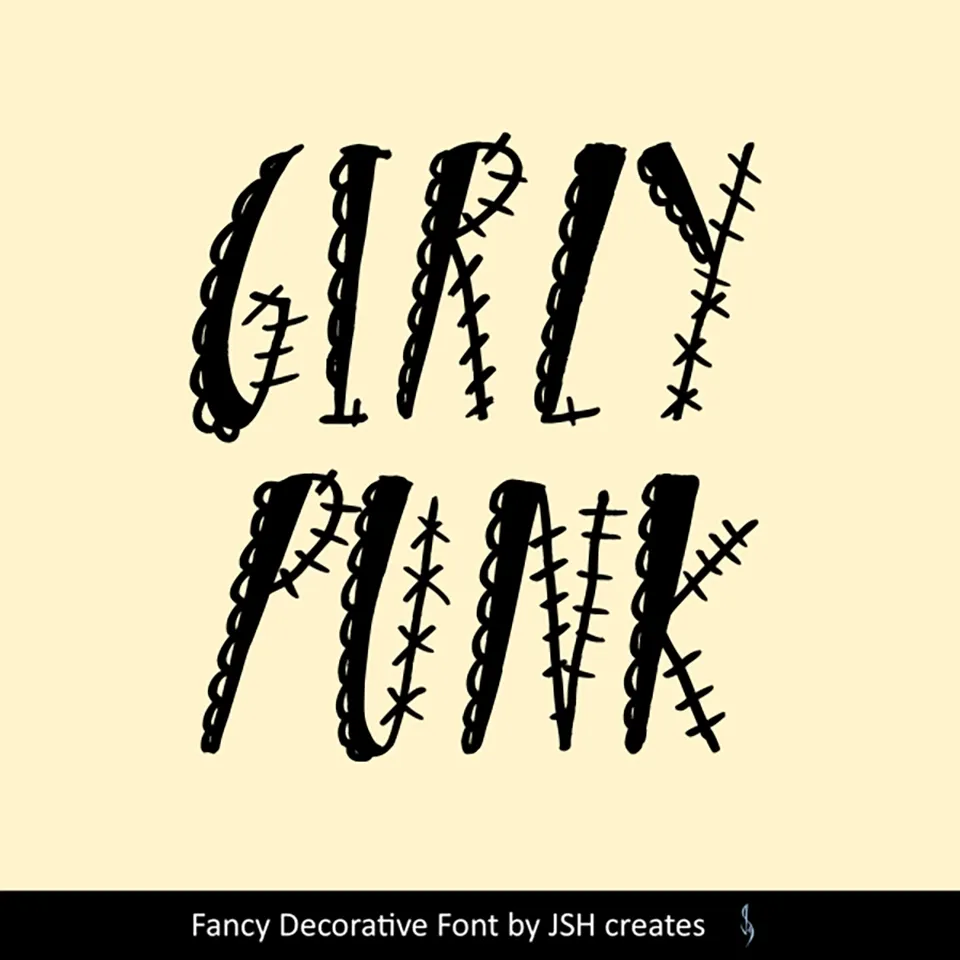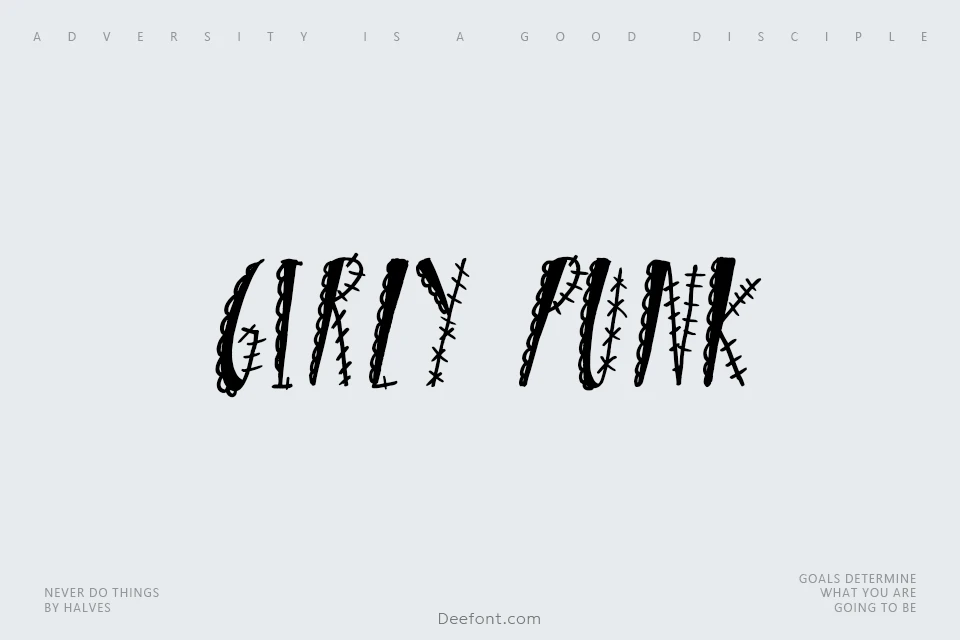
Girly Punk Font
Girly Punk Font is a decorative display typeface with a playful punk-inspired aesthetic, featuring unique, hand-drawn letterforms with stitched details. Perfect for bold headlines, posters, apparel, and creative branding, this font adds a touch of rebellious charm to any design.